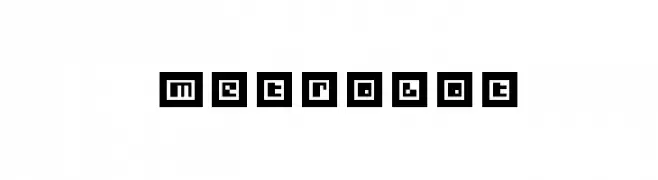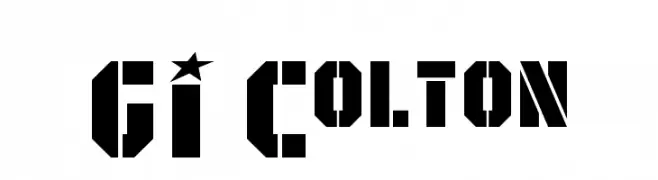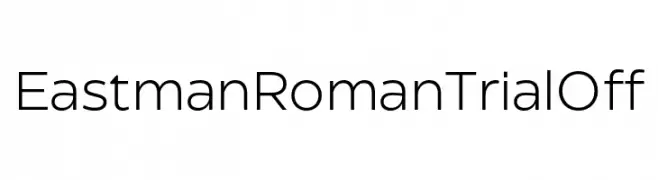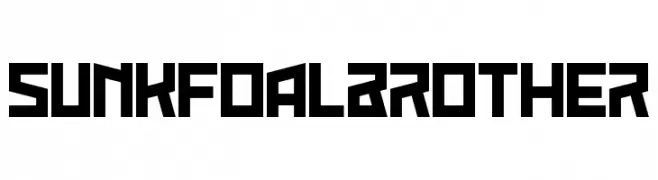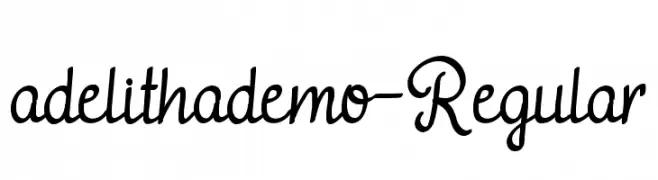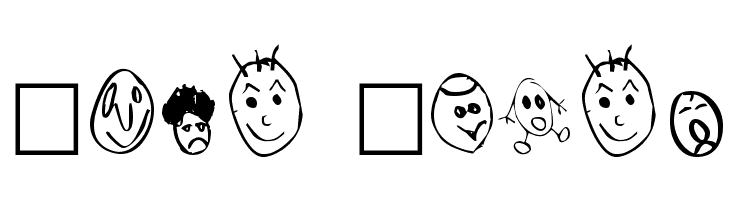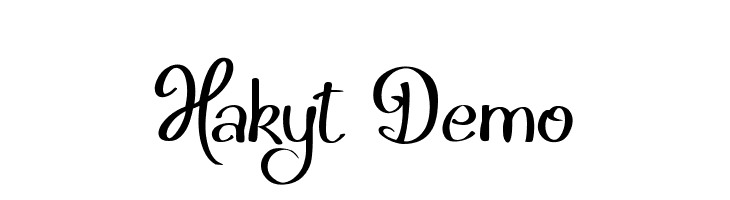
A geometric, octagonal font with a modern and technical style.
A bold, geometric font with characters enclosed in squares, offering a futuristic and digital look.
A bold, angular font with a futuristic, geometric design.
A whimsical decorative font with cartoon-style characters and animals.
A bold, friendly handwritten script with smooth, connected strokes.
A bold, geometric stencil-style font with sharp angles and cut-out sections.
A modern, geometric sans-serif font with clean lines and balanced spacing.
A playful and elegant script font with a handwritten appearance.